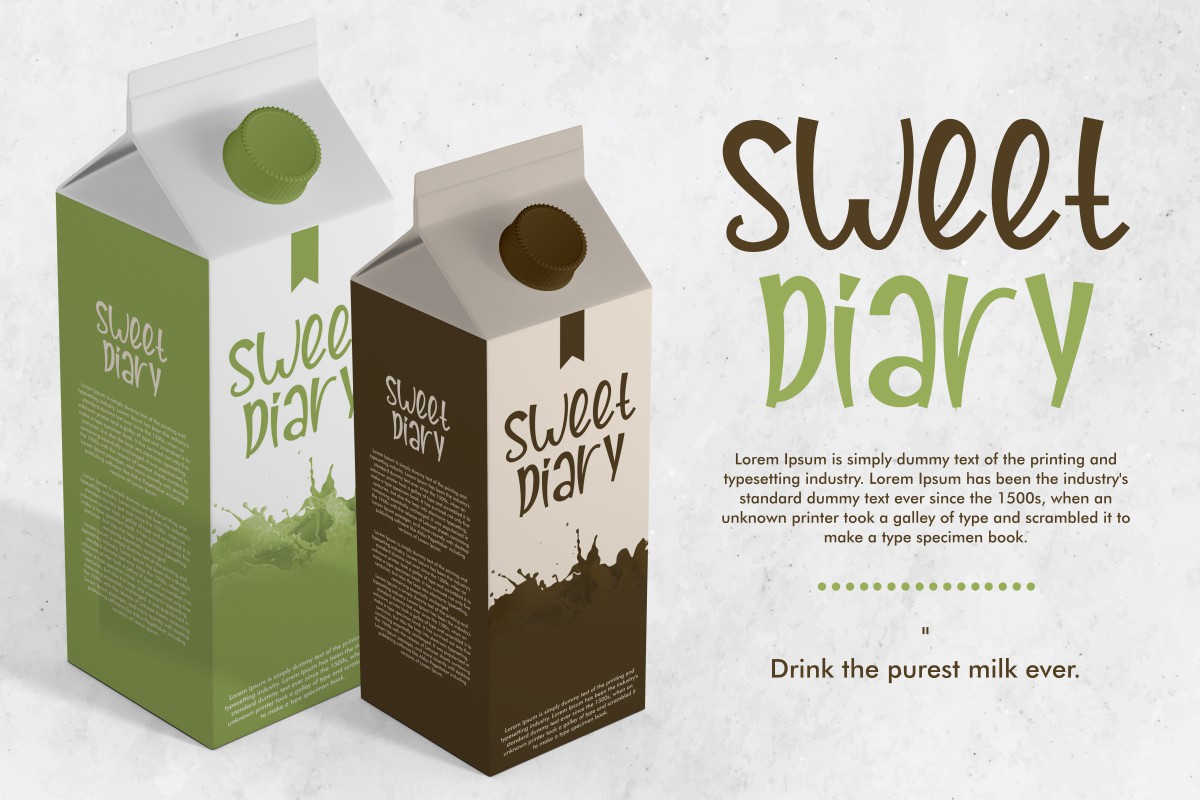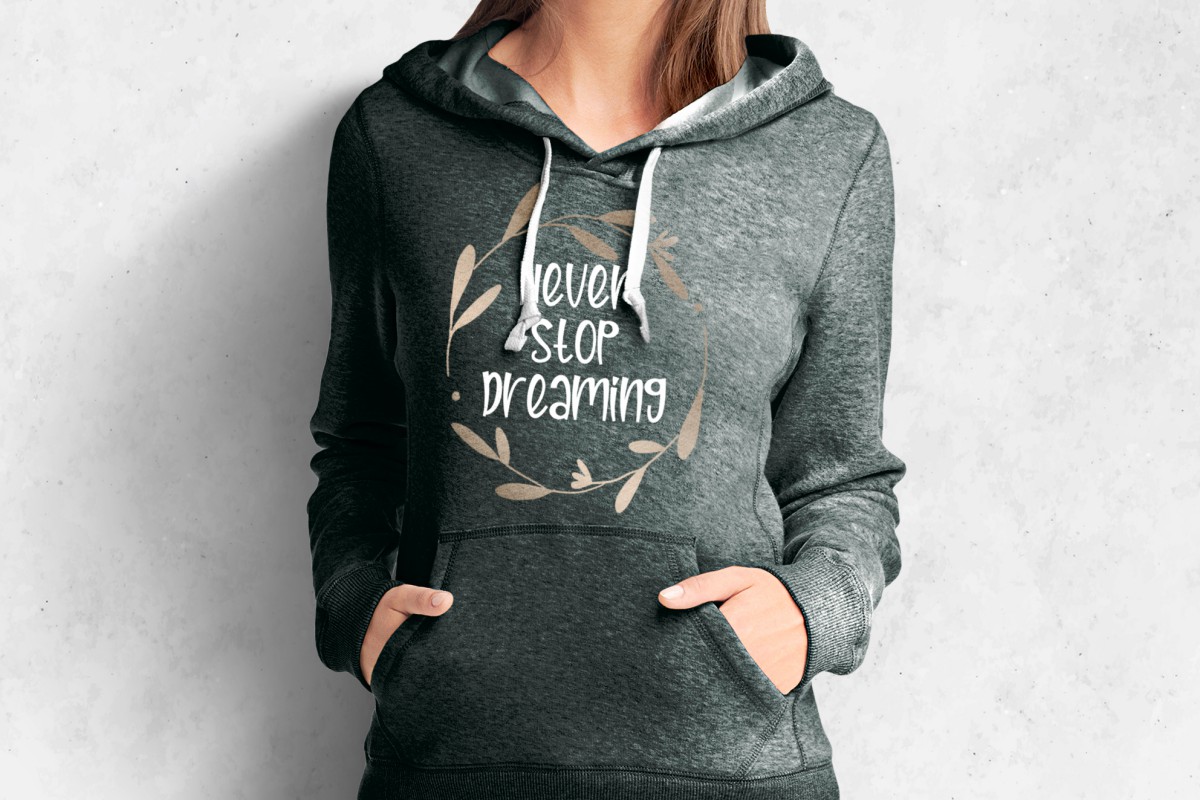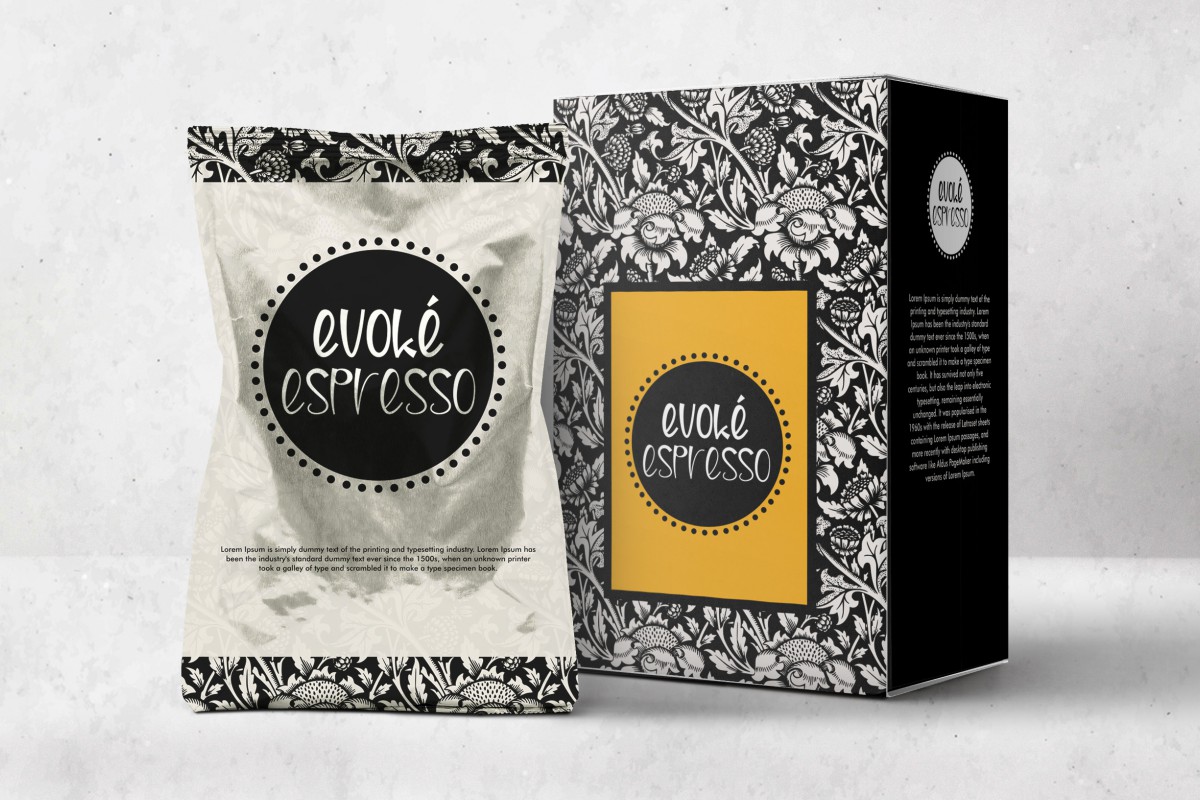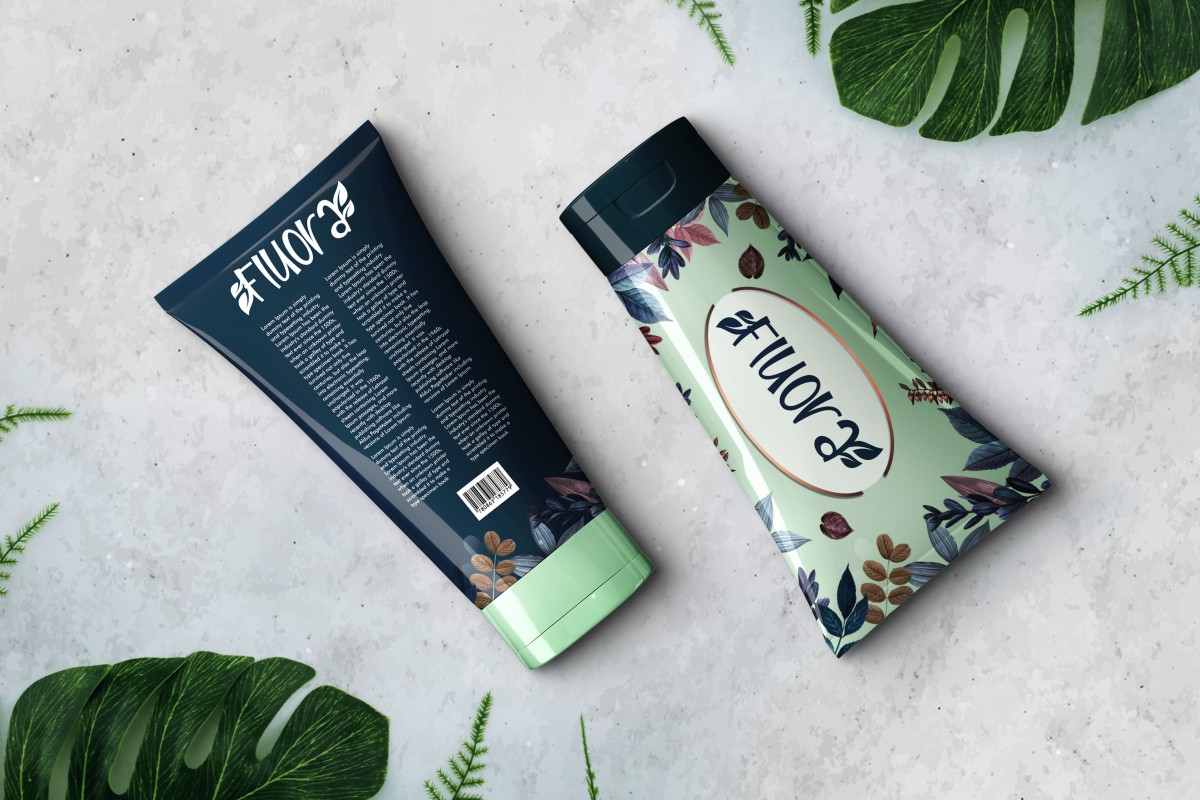
Happy Friends Font
Happy Friends Font is a handwritten font with fun, cartoon and energic style on its letters. This fancy font has unique style that bring cute while easily to read. It will be amazing for any projects : comic, flyer, birthday invitation, and many more
Happy Friends Font includes full set of Uppercase and Lowercase Basic Characters, and than 2 style font Numerals and Punctuation. This font would be great to use for any project that requires a cute look!